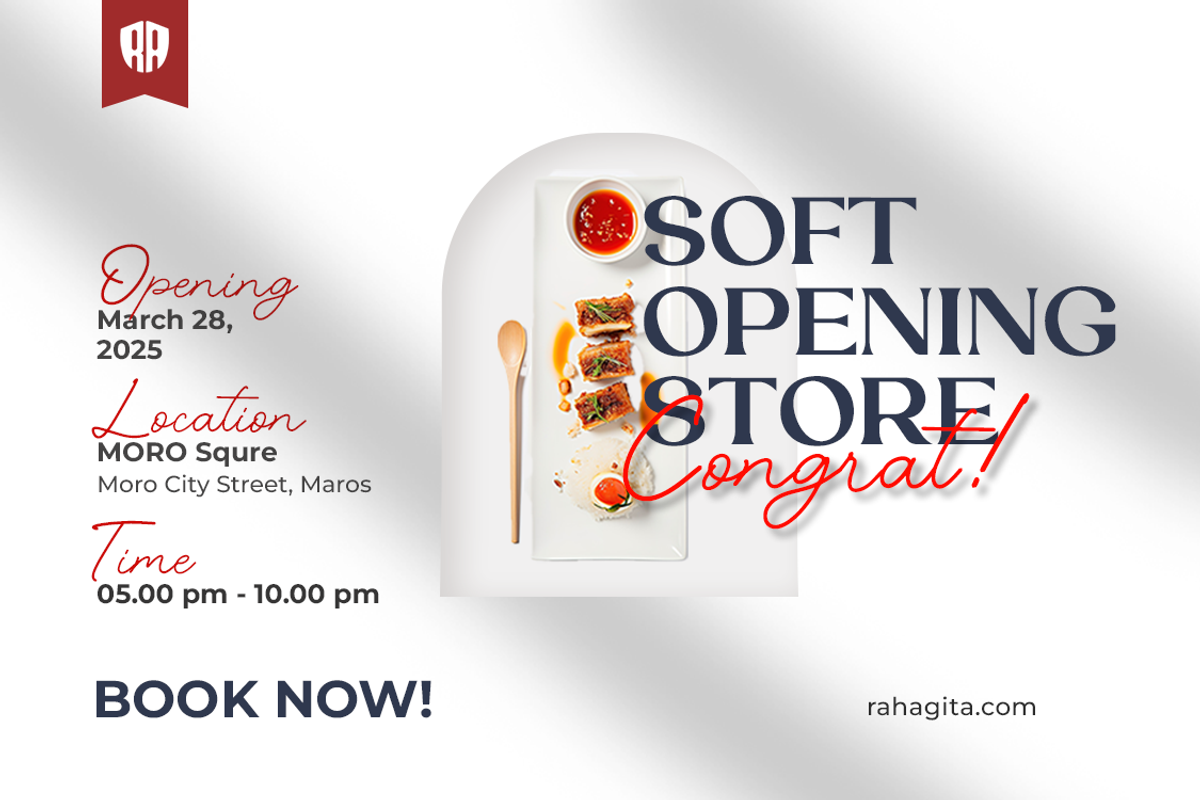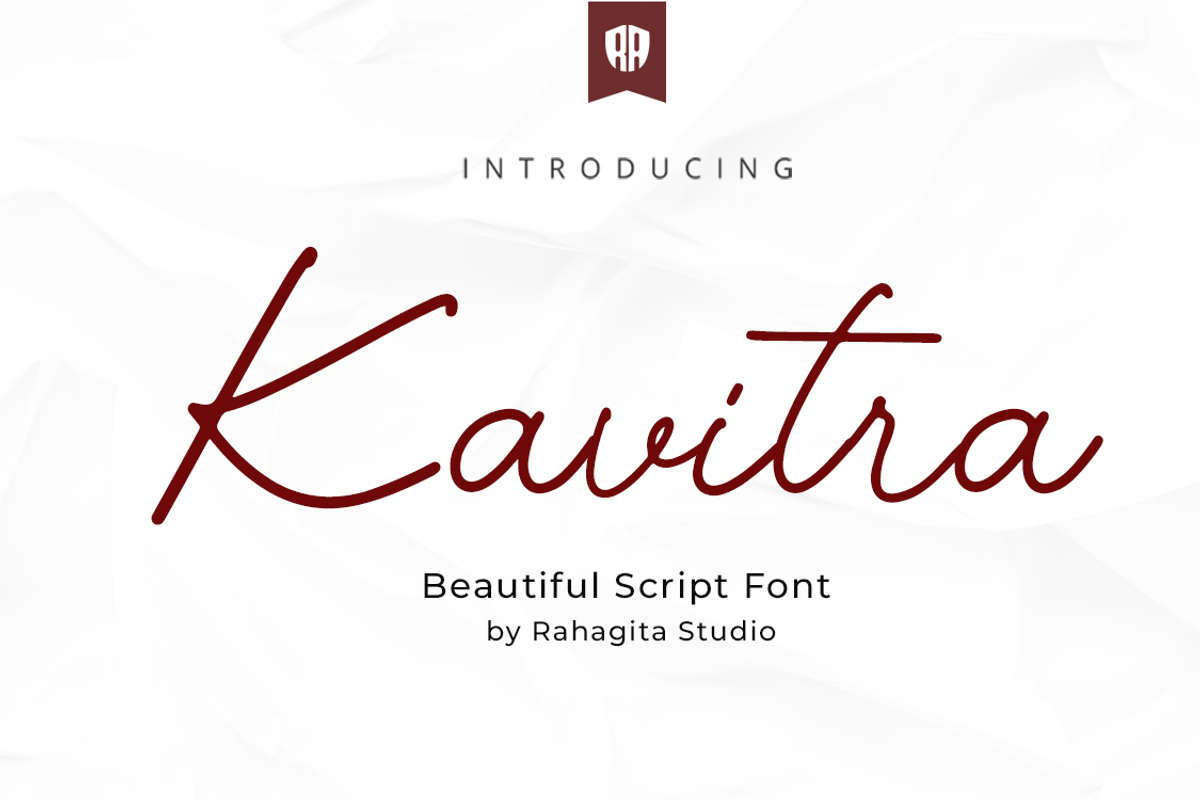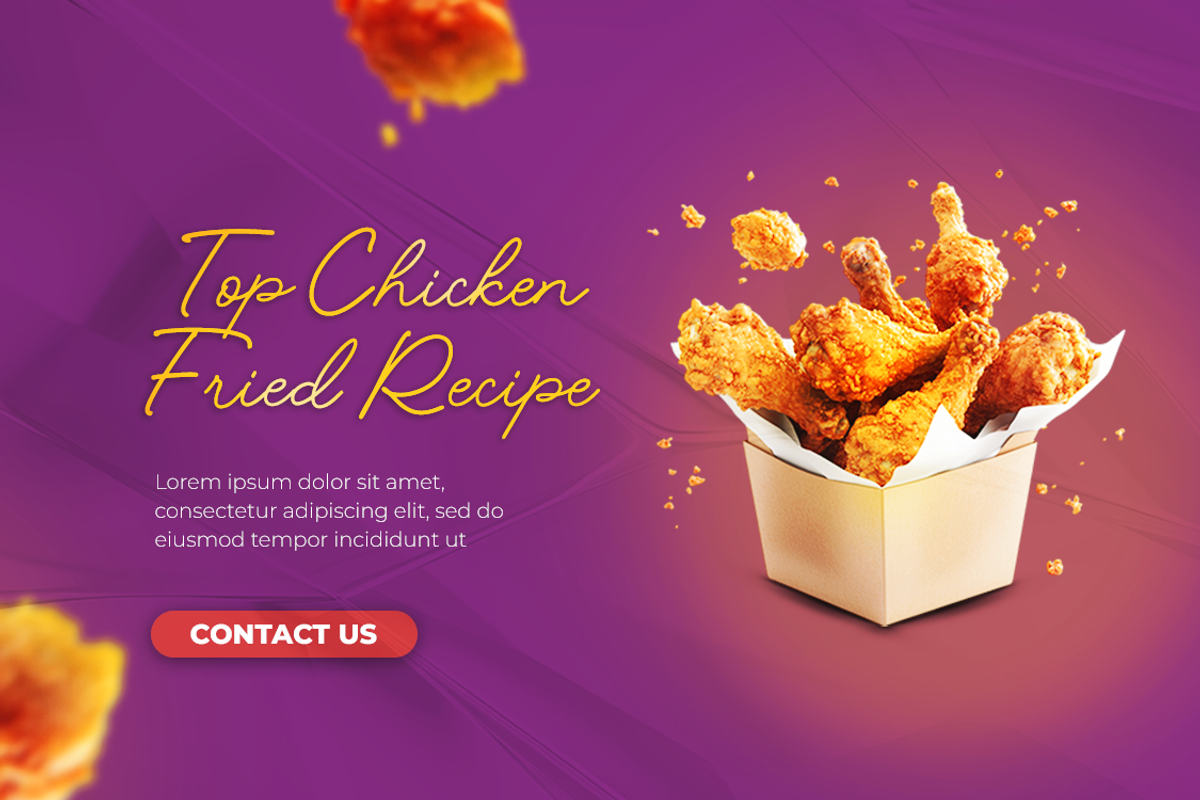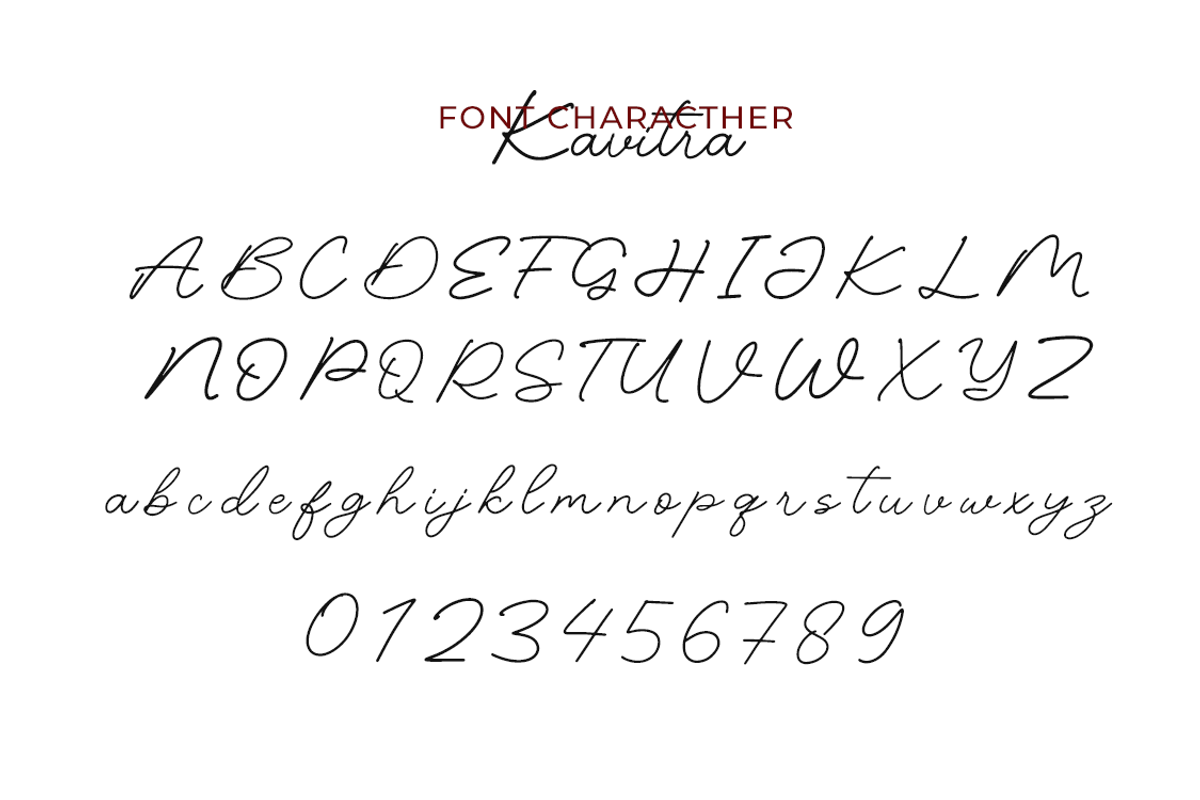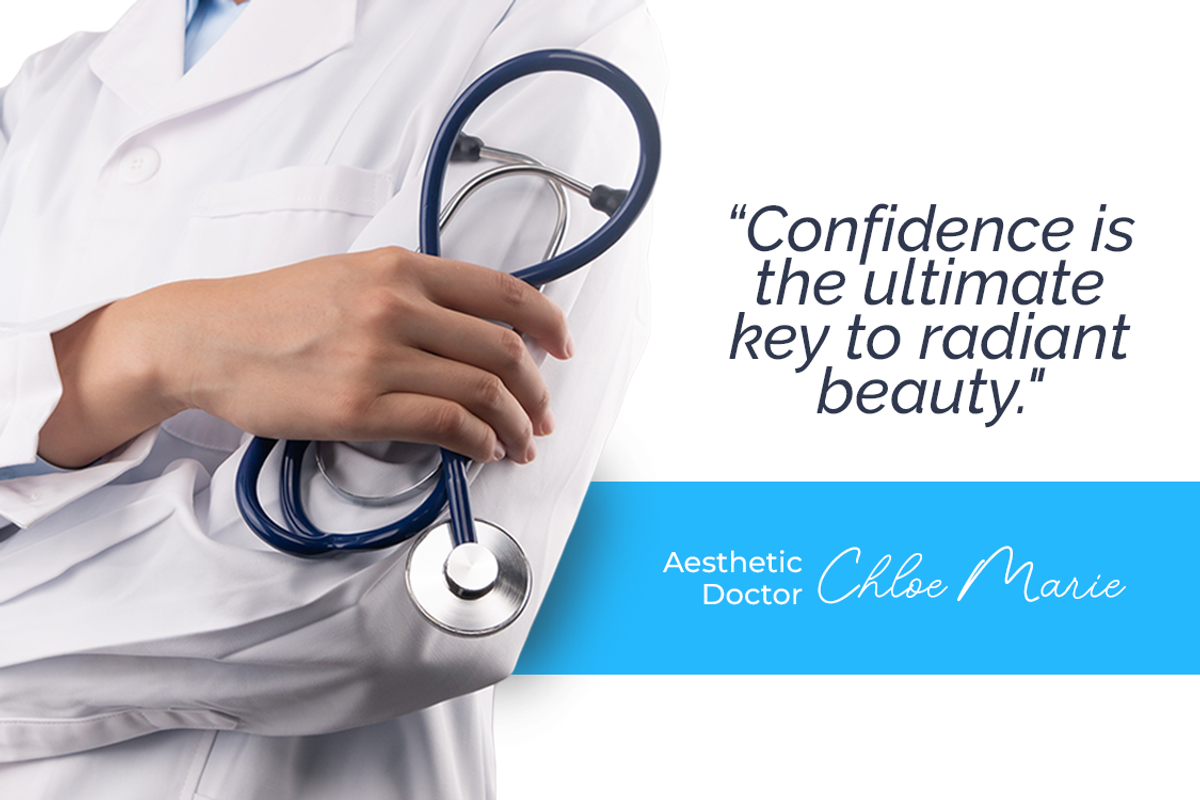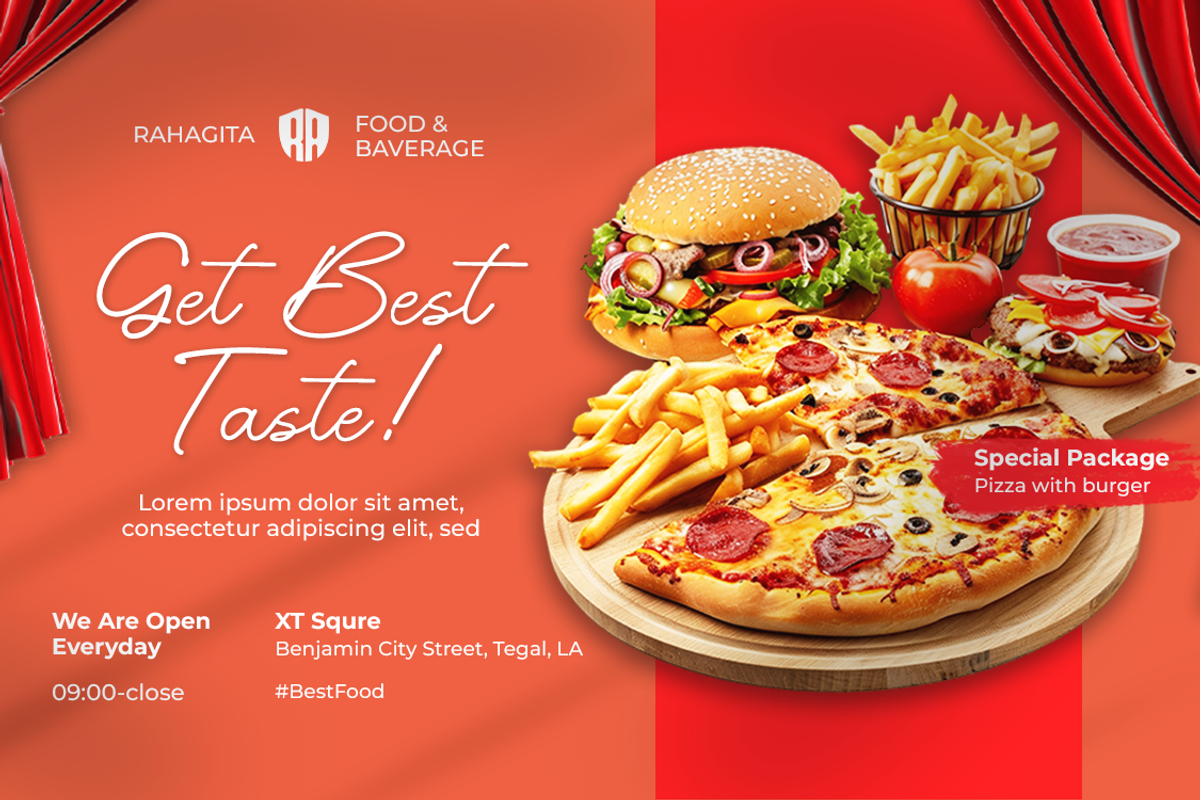
Kavitra
Kavitra is a modern script font with a smooth, handwritten style that brings elegance, personality, and warmth to any design. Its fluid strokes and natural curves make it the perfect choice for branding projects, wedding invitations, product packaging, fashion designs, social media graphics, and more.
Carefully crafted with attention to detail, Kavitra delivers a clean and classy handwritten aesthetic while remaining versatile and easy to use. Whether you’re a designer, entrepreneur, or content creator, Kavitra adds a stylish and authentic touch to your work.